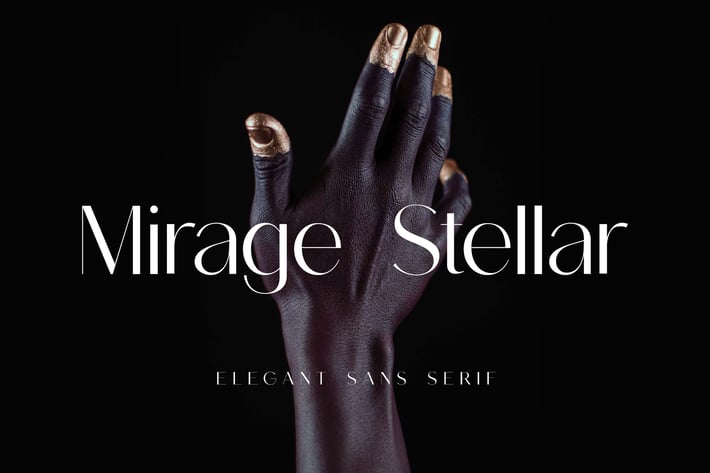
Mirage Stellar Elegant Sans Serif Font
Introducing our new product the name is Mirage Stellar Elegant Sans Serif Font. Mirage Stellar Elegant Sans Serif Font that feels beautiful classy, elegant, and modern. This font is perfectly suited for a wide variety of projects, such as signature, stationery, logo, wedding, typography quotes, magazine or book covers, website headers, clothing, branding, packaging design, and more. Also, fashion-related branding or editorial design displays both masculine and feminine qualities.